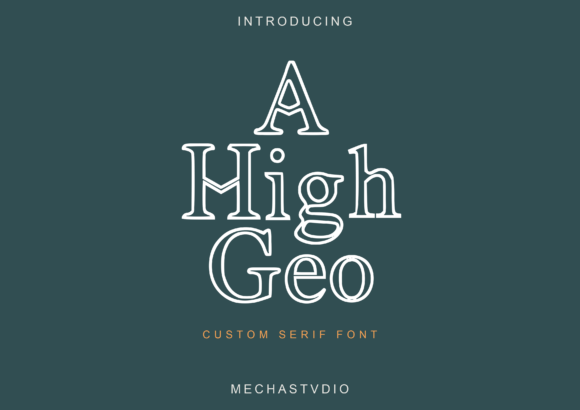
Introduction to A High Geo Font
A High Geo is a simple, hollow, and minimalist custom serif font.
Its unique style is perfect for all your projects as it has the potential to transform them into a true standout .
Key Features of A High Geo Font
Why Choose A High Geo Font?
A High Geo Font offers exceptional quality and versatility, making it a valuable addition to your design toolkit. Whether you’re creating for personal projects or commercial use, A High Geo Font delivers professional results.